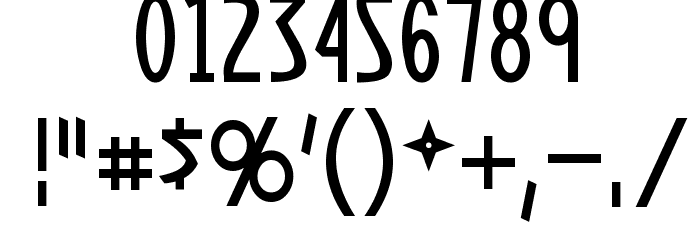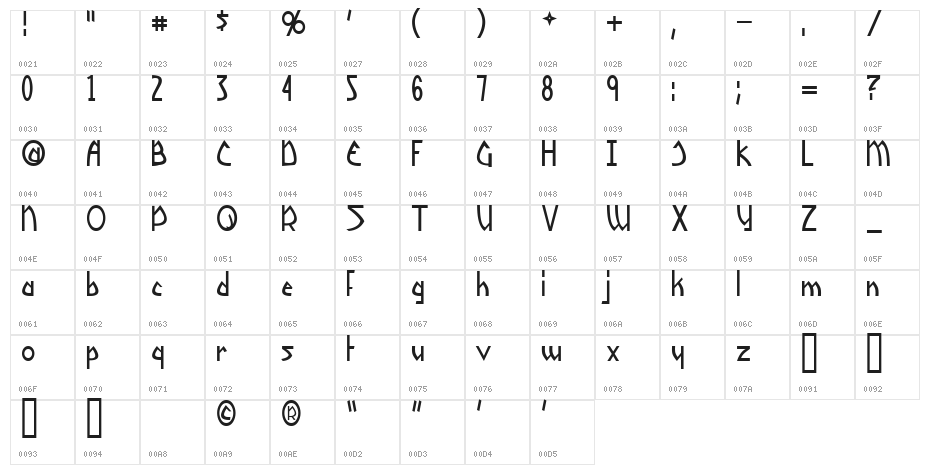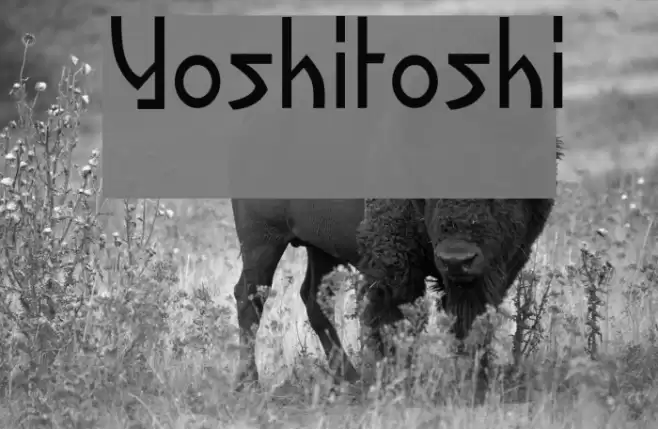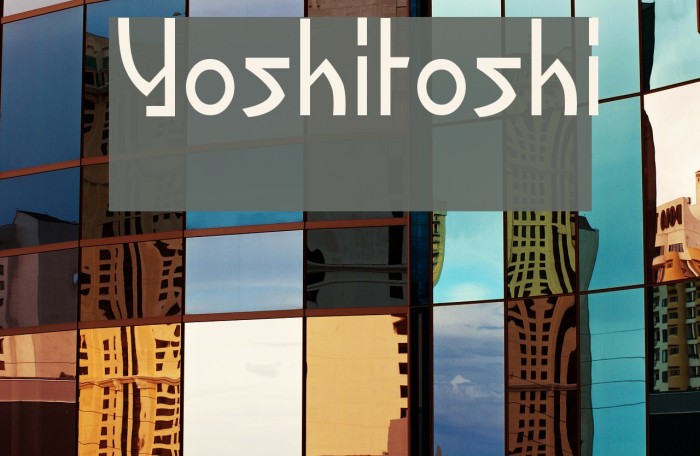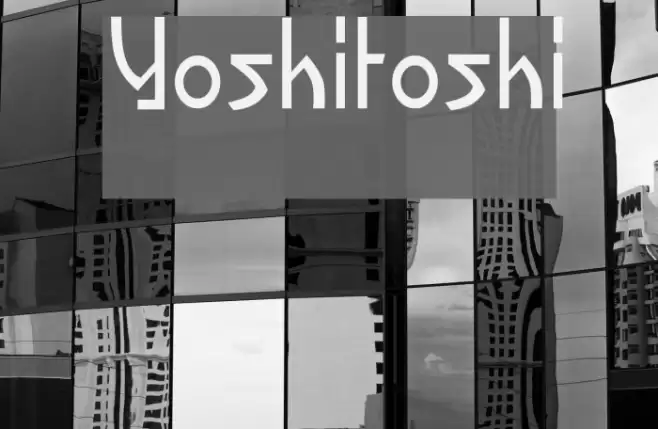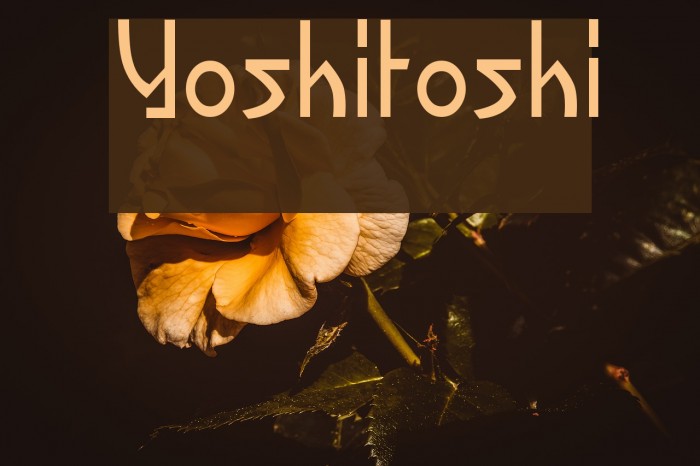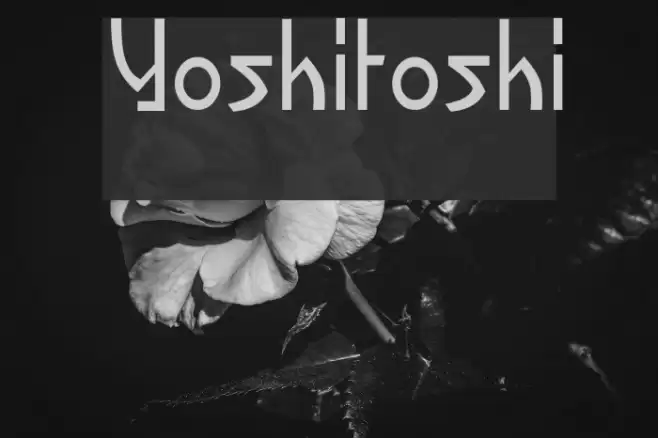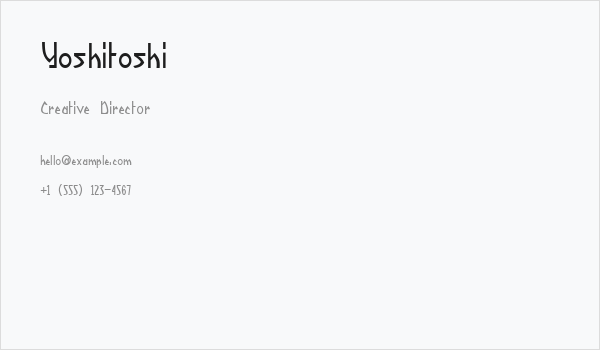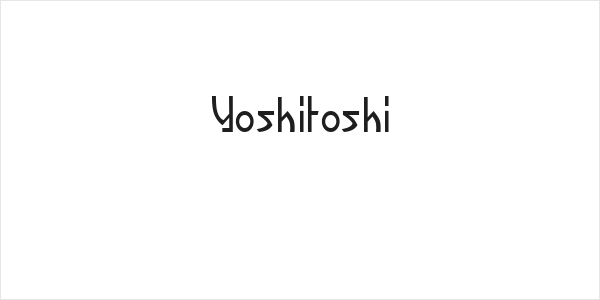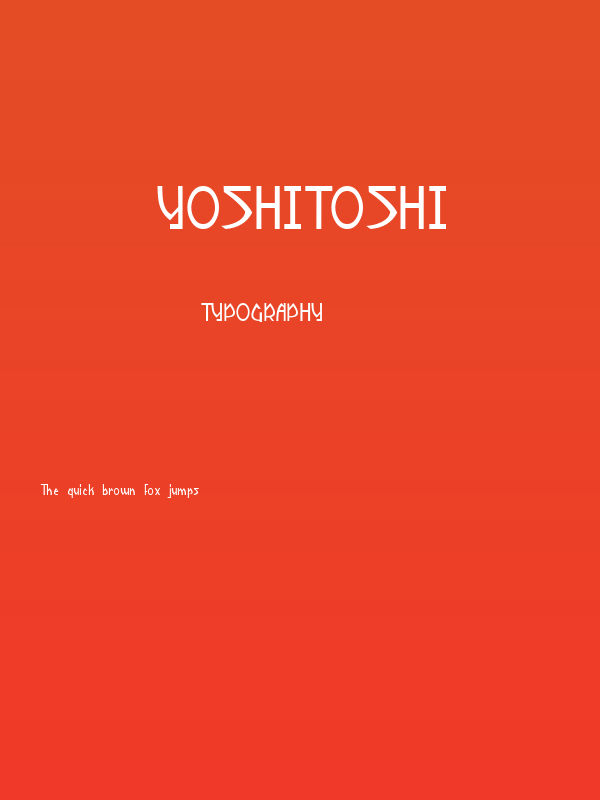
Yoshitoshi Font
Yoshitoshi Description
This font features a unique blend of geometric and calligraphic elements, creating a distinct and artistic appearance. The uppercase letters are tall and narrow with sharp angles and curves, giving them a modern yet slightly exotic feel. The lowercase letters maintain a consistent style, with some characters featuring elongated strokes and others having more compact forms. The numerals are bold and clear, ensuring readability. Special characters are designed with the same attention to detail, adding to the font's cohesive look. Overall, this font combines elegance with a touch of playfulness, making it versatile for various design needs.
| Proposed Projects | Ideal for branding, posters, and artistic projects that require a unique and eye-catching typeface. |